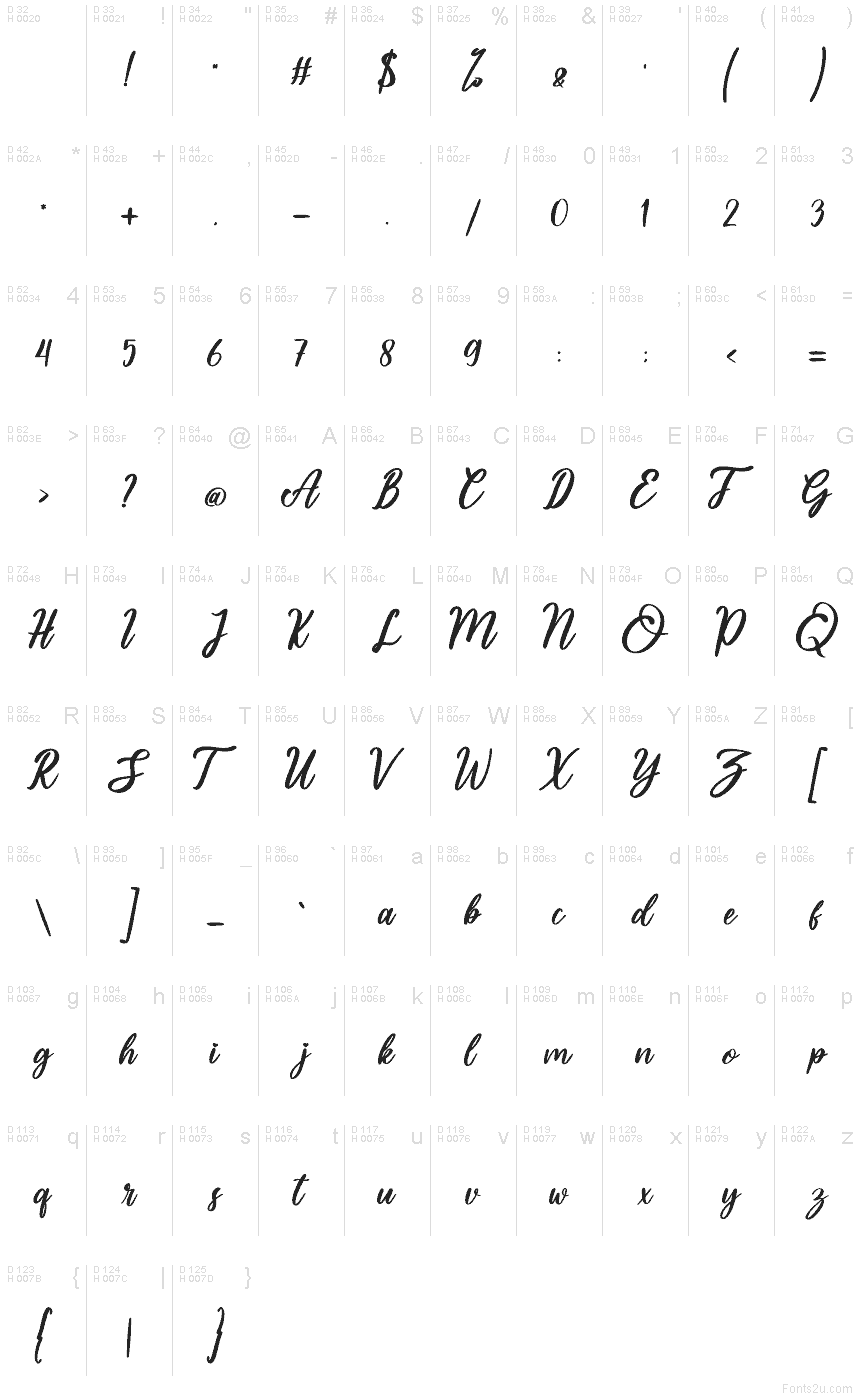
Asttuty
Asttuty font by Skiiller Studio is a free calligraphy font that carries a beautiful handwritten and flowing appearance. Its cursive script letters are elegantly created with curved lines to give your projects an eye-catching result. It has a modern aesthetic touch and is an ideal tool for personal presentations that demand originality.